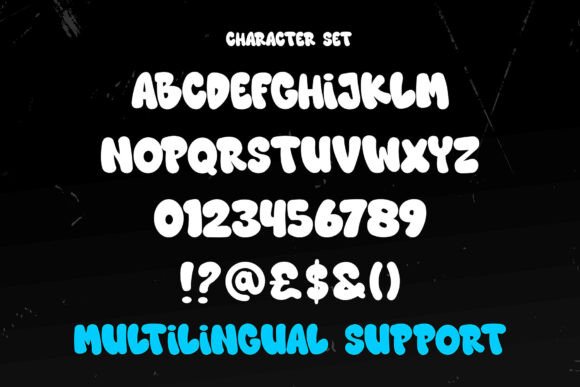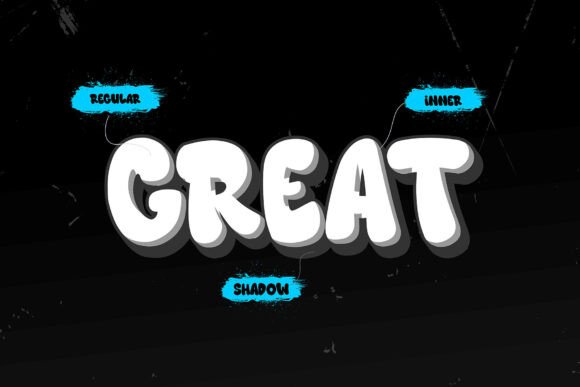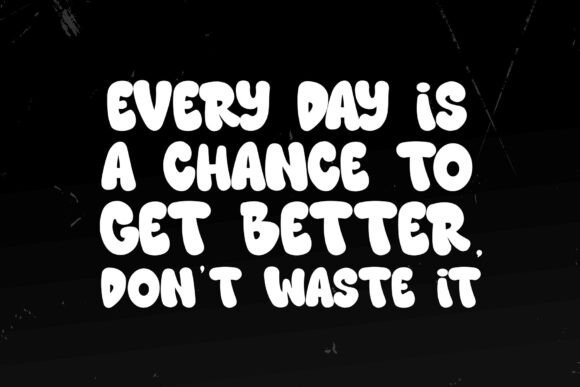
Introduction to Great Splash Font
Ignite the urban allure in your designs with Great Splash, a powerful 3-layered graffiti font that pulsates with dynamic city vibes.
Unleash your creativity and metamorphose your designs into enticing marvels replete with character and panache With three exclusive layers, Great Splash offers unparalleled flexibility, rising above mere fonts as it allows you to intertwine styles, achieving radiant multidimensional effects that breathe life into your text.
Key Features of Great Splash Font